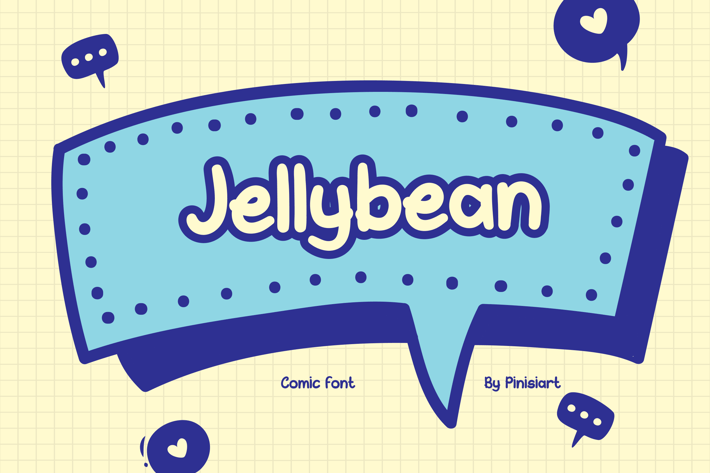
Jellybean – Comic Font
Introducing Jellybean, the perfect font for anyone looking for a fun and playful touch in their projects! Jellybean is a Cartoon and Comic Font that’s both Cute and Funny. It’s a Display Font that’s perfect for social media platforms like Instagram and YouTube, as well as for movie titles or school projects.
This Sans Serif Font is specially designed for Kids and will add a touch of whimsy to any project. Whether you’re creating a poster for your classroom or a logo for a children’s brand, Jellybean is the perfect font for you.
What’s more, Jellybean comes with plenty of nature foliage and floral, organic and natural style of font. This makes it the ideal font for any project that needs a touch of nature or a more organic feel. So whether you’re designing a book cover or creating graphics for a garden center, Jellybean has got you covered.